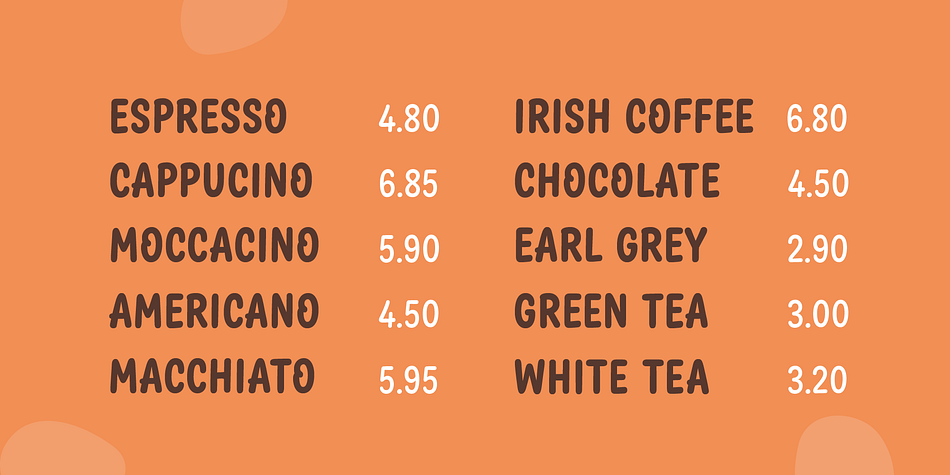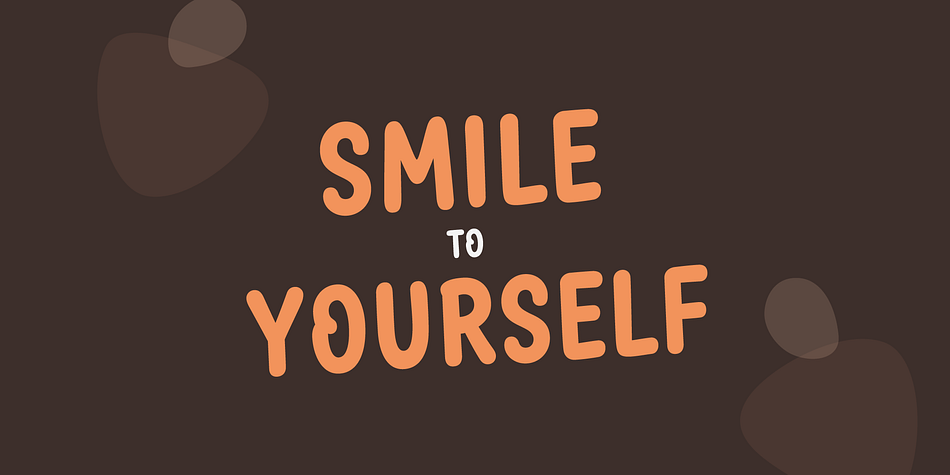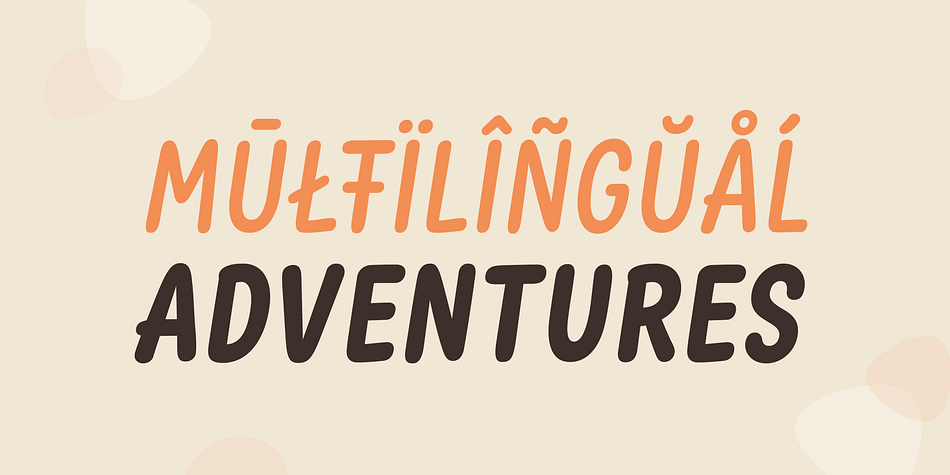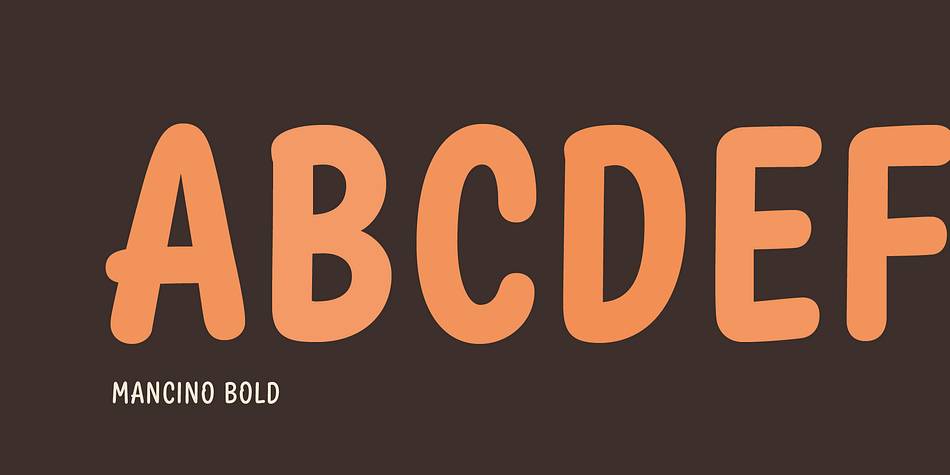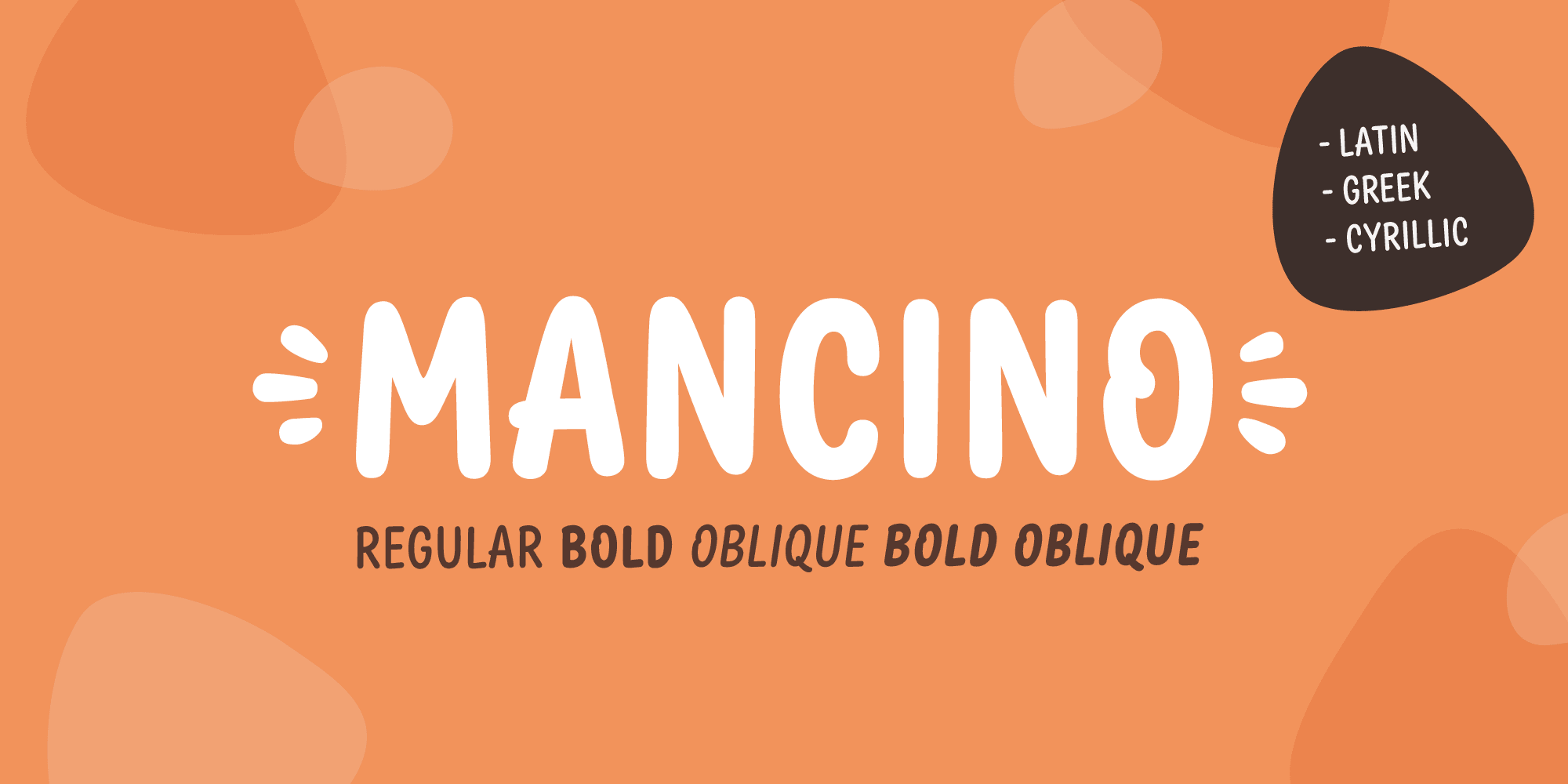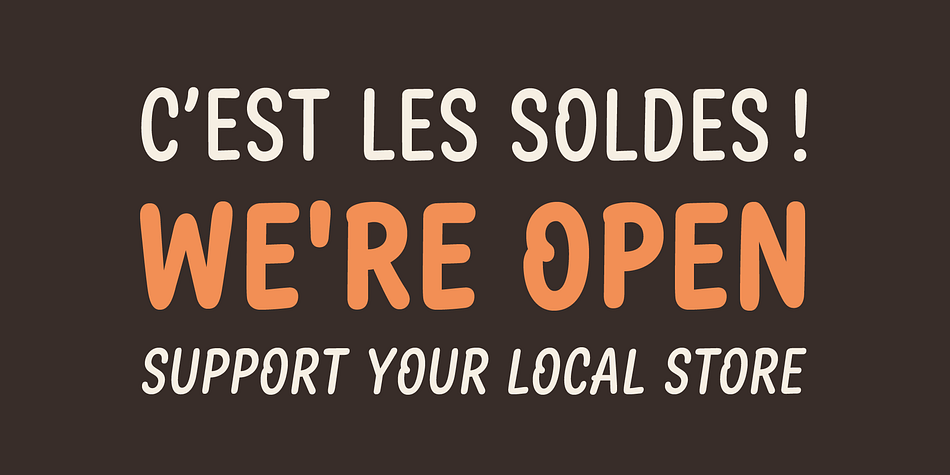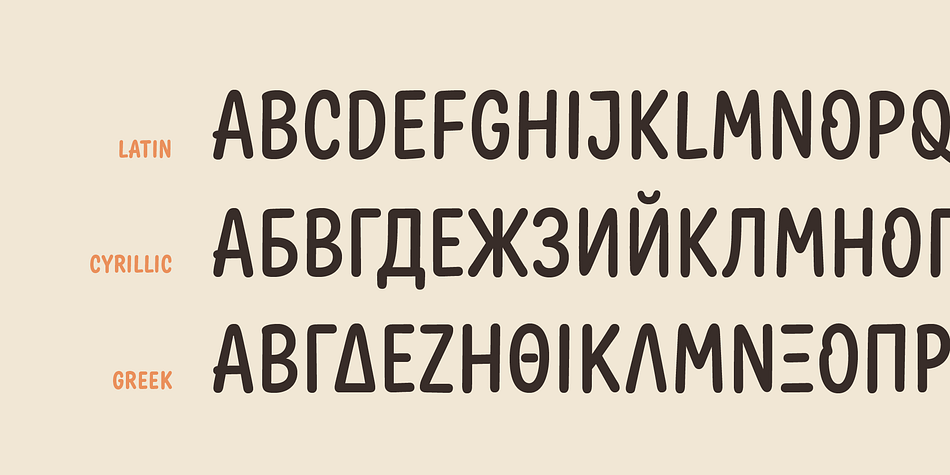
Designed by Joël Carrouché, Mancino is a comic and hand display font family. This typeface has four styles and was published by JCfonts.
Mancino is an all caps family of 4 fonts, inspired by hand painted signs and advertising. Uppercase and “lowercase” letters are slightly different, for a more natural look. You can also turn on discretionary ligatures to replace the second letter of any pair (EE, LL, OO) by its other variant.